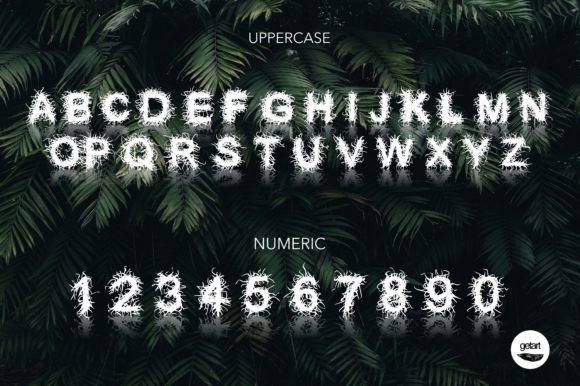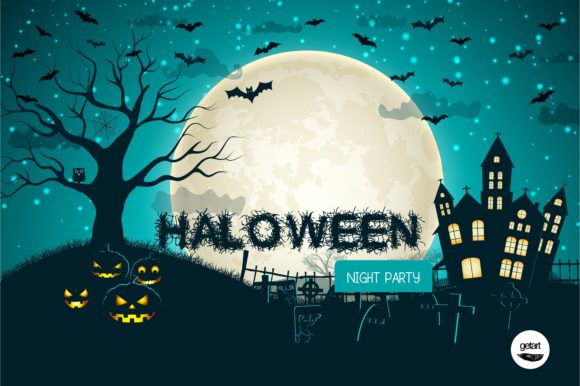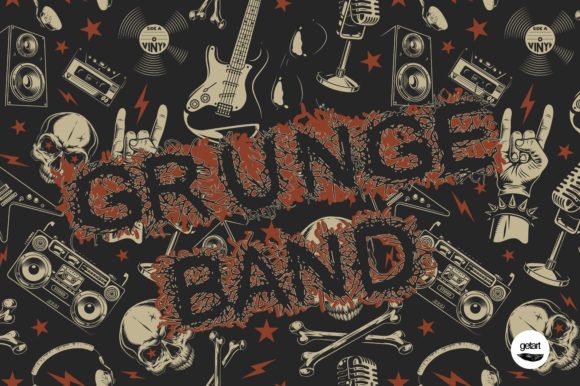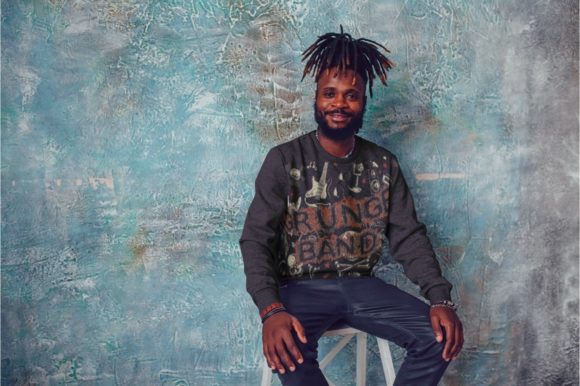
Blessphemy Font: Elevate Your Designs with a Dramatic and Unique Decorative Font
In the world of design, fonts play a crucial role in conveying the tone and personality of a project. Whether you’re working on a logo, a poster, or a digital artwork, the right font can make all the difference. If you’re looking for a font that will add a touch of drama and uniqueness to your creations, look no further than Blessphemy Font. In this article, we’ll explore the features and benefits of Blessphemy Font, and why it’s a must-have for designers and crafters.
What is Blessphemy Font?
Blessphemy Font is a decorative font that is expertly designed to make your creations stand out. With its dramatic and unique design, this font is perfect for adding a touch of elegance and sophistication to your projects. Whether you’re working on a formal or informal project, Blessphemy Font is sure to impress.
Key Features of Blessphemy Font
- Dramatic and Unique Design: Blessphemy Font features a one-of-a-kind design that is sure to grab attention. Its dramatic and elegant style makes it perfect for a variety of projects, from logos and posters to digital artworks and crafts.
- High-Quality Design: This font is designed with precision and attention to detail, ensuring that it looks great in any size or format.
- Versatile: Blessphemy Font can be used on a variety of projects, including logos, posters, digital artworks, crafts, and more.
- Easily Readable: Despite its dramatic design, Blessphemy Font is easily readable, making it perfect for use in body text or headlines.
Benefits of Using Blessphemy Font
So why choose Blessphemy Font for your next project? Here are just a few benefits of using this amazing font:
- Adds Drama and Elegance: Blessphemy Font adds a touch of drama and elegance to any project, making it perfect for formal or informal designs.
- Stand Out from the Crowd: With its unique design, Blessphemy Font is sure to make your project stand out from the crowd.
- Perfect for Creative Projects: This font is perfect for creative projects, such as digital artworks, crafts, and DIY projects.
- Great for Logos and Branding: Blessphemy Font is also great for use in logos and branding, adding a touch of sophistication and elegance to your brand.
How to Use Blessphemy Font
Using Blessphemy Font is easy! Here are a few tips for incorporating this amazing font into your next project:
- Use it as a Headline Font: Blessphemy Font is perfect for use as a headline font, adding a touch of drama and elegance to your title or header.
- Add it to Your Logo: This font is also great for use in logos, adding a touch of sophistication and elegance to your brand.
- Use it in Digital Artworks: Blessphemy Font is perfect for use in digital artworks, such as illustrations, graphics, and more.
- Experiment with Different Sizes and Colors: Don’t be afraid to experiment with different sizes and colors to find the perfect look for your project.
In conclusion, Blessphemy Font is a dramatic and uniquely designed decorative font that is perfect for adding a touch of elegance and sophistication to your creations. With its high-quality design, versatility, and ease of use, this font is a must-have for designers and crafters. Whether you’re working on a formal or informal project, Blessphemy Font is sure to impress. So why wait? Download Blessphemy Font today and take your designs to the next level!